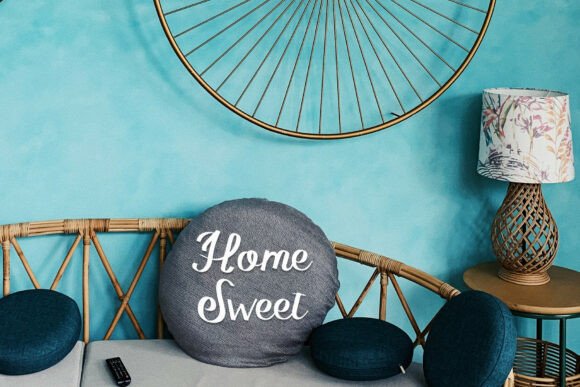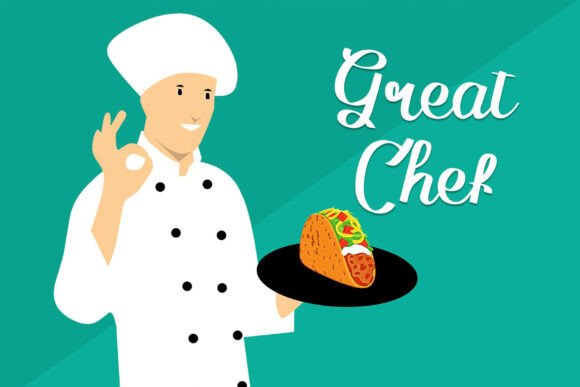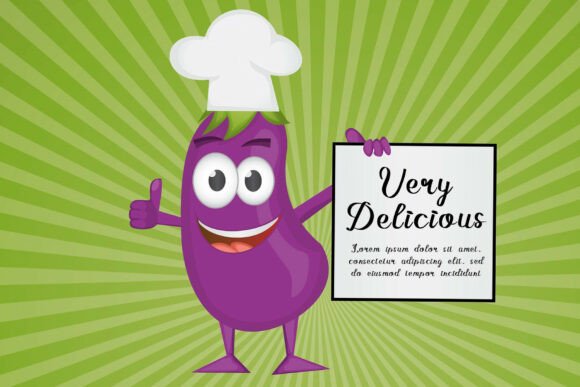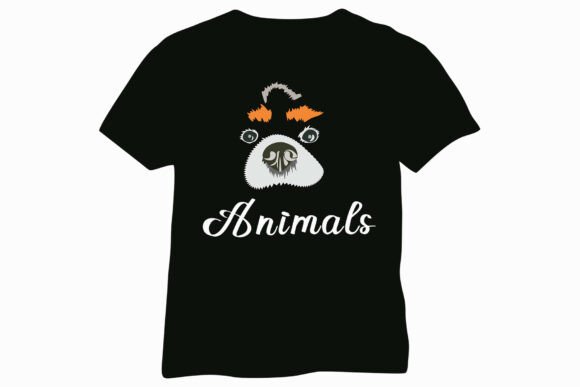
Introduction to Happy Kitchen Font
Imagine you’re sitting in your cozy home studio, surrounded by half-finished creative projects and scattered design materials. You’re working on a wedding invitation, and you want it to be truly special. You’ve tried a few fonts, but none of them seem to capture the essence of the happy couple’s love story. That’s when you stumble upon the Happy Kitchen Font – a unique and elegant design resource that changes everything.
As a designer, you know how challenging it can be to find the perfect font for your project. That’s why the Happy Kitchen Font is such a valuable addition to your design arsenal. With its varied baseline and natural, hand-made touch, it adds a high-quality, handwritten feel to any design. Whether you’re working on a logo, business card, or billboard, this font is sure to make your ideas shine.
Key Features of Happy Kitchen Font
- High quality design: This font is designed with attention to detail and precision, making it ideal for any design project.
- Unique characteristics: The Happy Kitchen Font features a fun and playful design, with bold and colorful lettering, perfect for adding a touch of whimsy to your creative project.
- Design resource: This font is a valuable addition to any design library, offering a unique and creative way to add visual interest to your work.
Honest Review: Happy Kitchen Font
I recently had the opportunity to work with the Happy Kitchen Font, and I must say it’s a fantastic design resource for any creative project. I downloaded it for free, and I was impressed by its high quality.
- ✨ The font is highly customizable, making it perfect for various design applications.
- ✨ The transparent background allows for seamless integration with other design elements.
- ✨ The font is well-suited for both digital and print designs.
⚠️ One of the main limitations of the Happy Kitchen Font is that it may not be suitable for formal or professional designs, as it has a more playful and casual feel.
Overall, I’m thoroughly impressed with the Happy Kitchen Font. It’s a great addition to any designer’s toolkit, and I would definitely recommend it for creative projects that require a fun and approachable tone.
Common Use Cases for Happy Kitchen Font
Use the Happy Kitchen Font in various creative projects such as food blogs, recipe books, kitchen decor, and more. The font’s playful and inviting design makes it perfect for any project related to food, cooking, or baking.